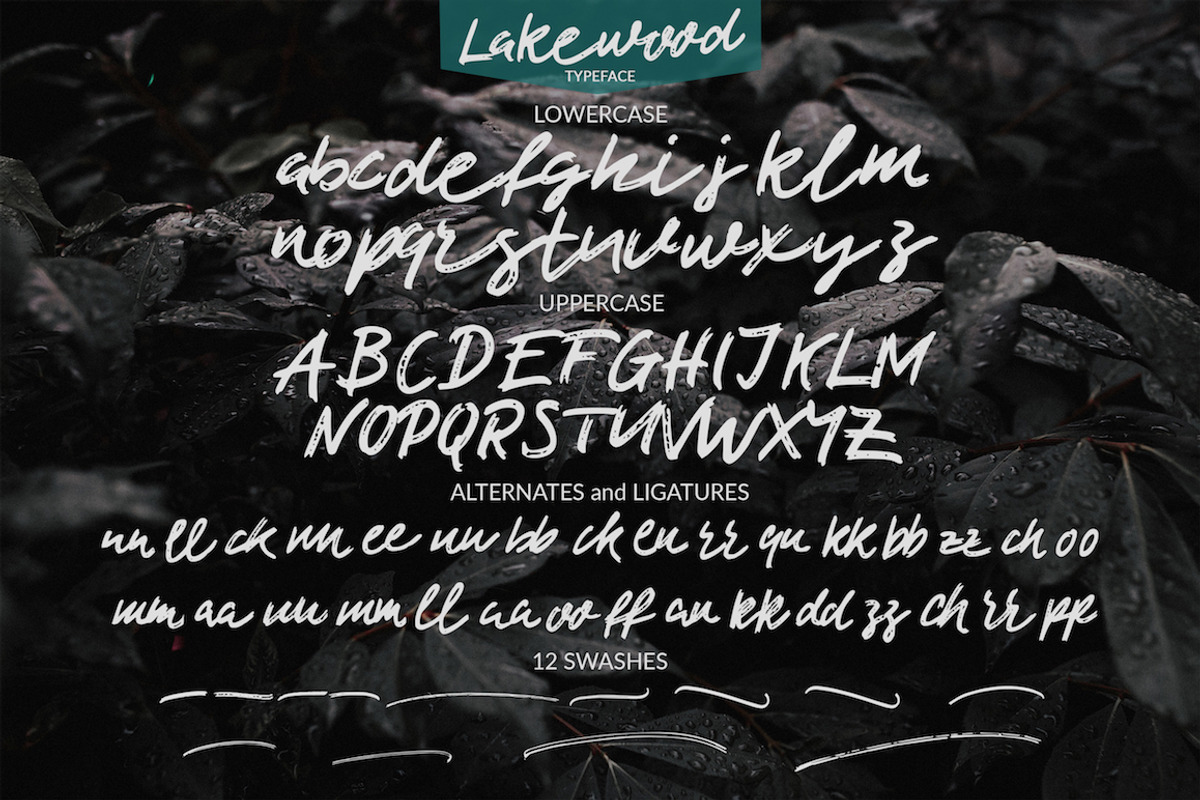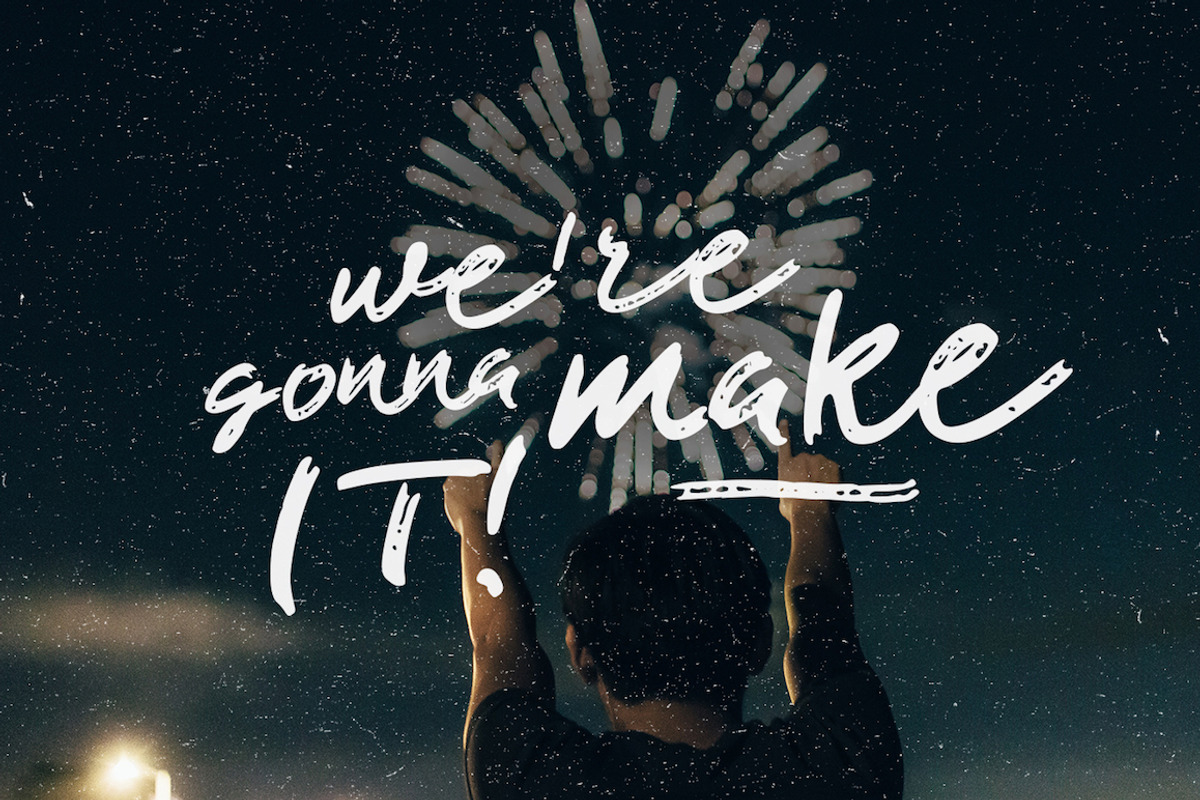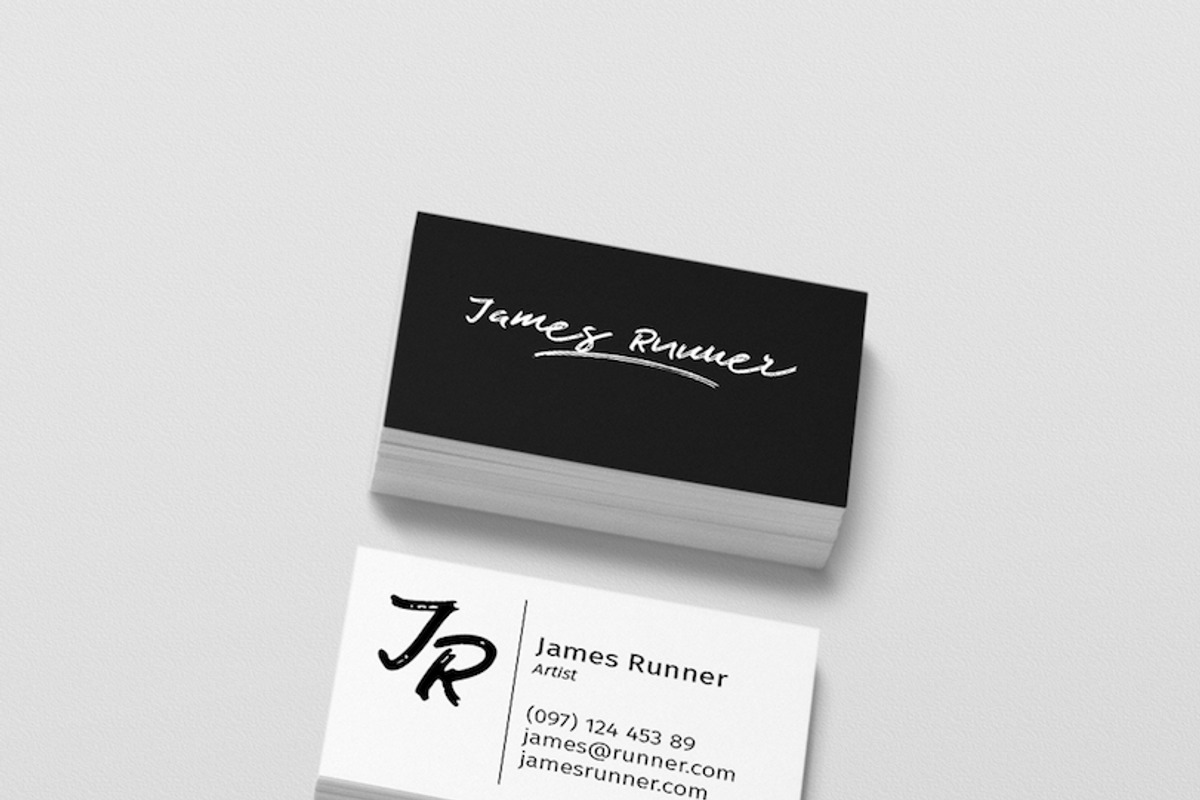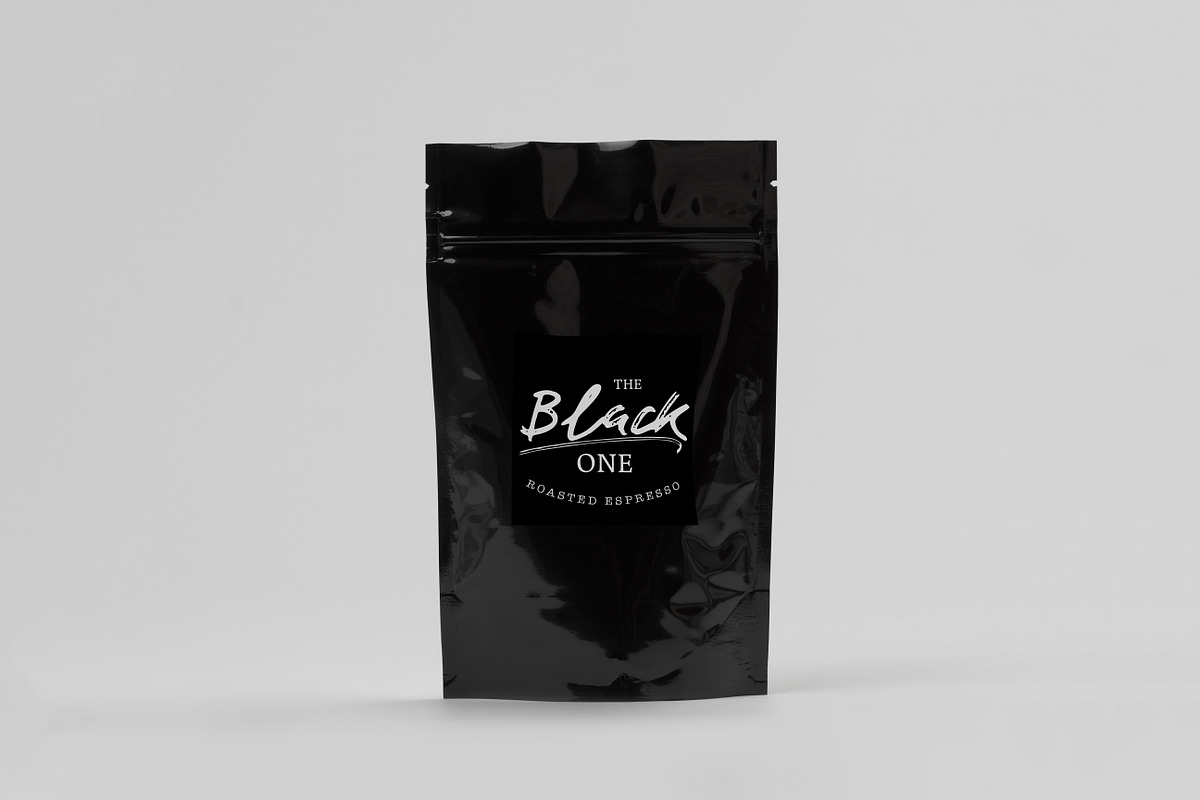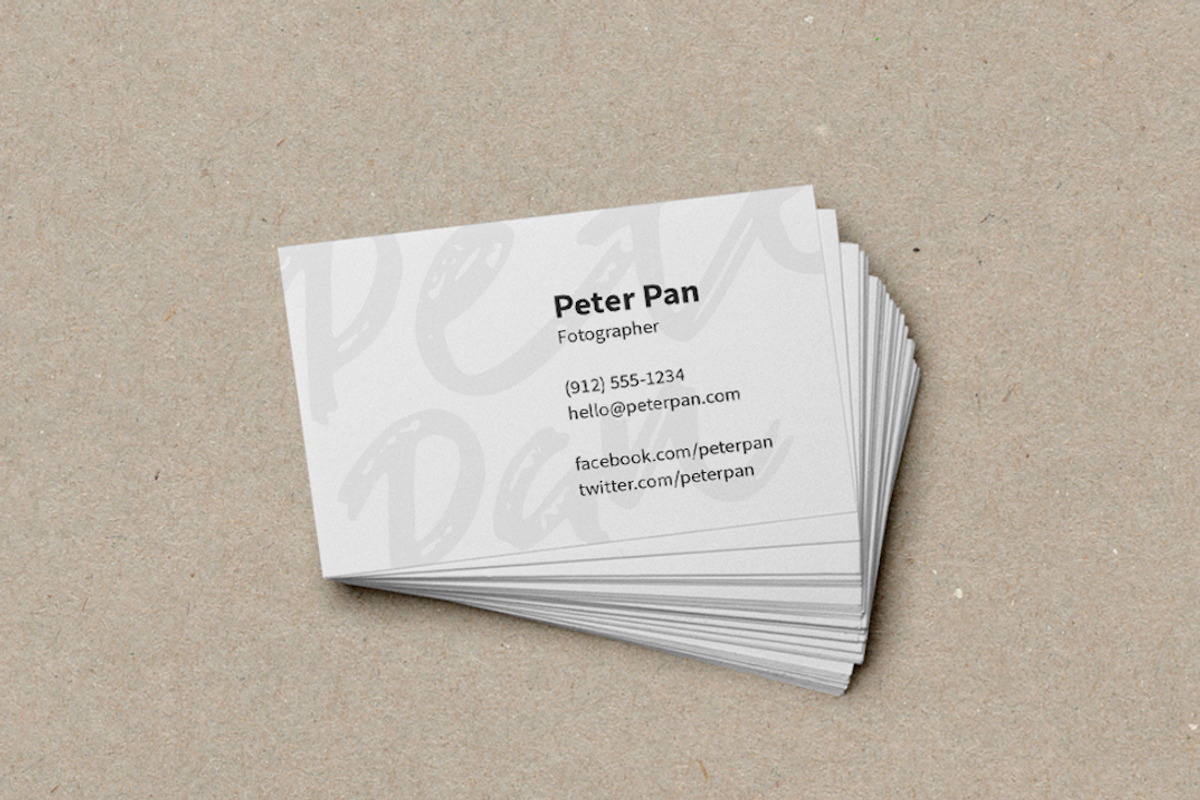
Lakewood - Handmade Font
Lakewood - Handmade Font by Studio FabianFischer is a font selected for branding, posters, packaging, typography.
- This typeface includes all uppercase and lowercase letters, alternates, ligatures and swashes.
- Lakewood Script Medium
Why Lakewood - Handmade Font is worth a look
Lakewood - Handmade Font by Studio FabianFischer fits naturally into Branding, posters, packaging, typography.